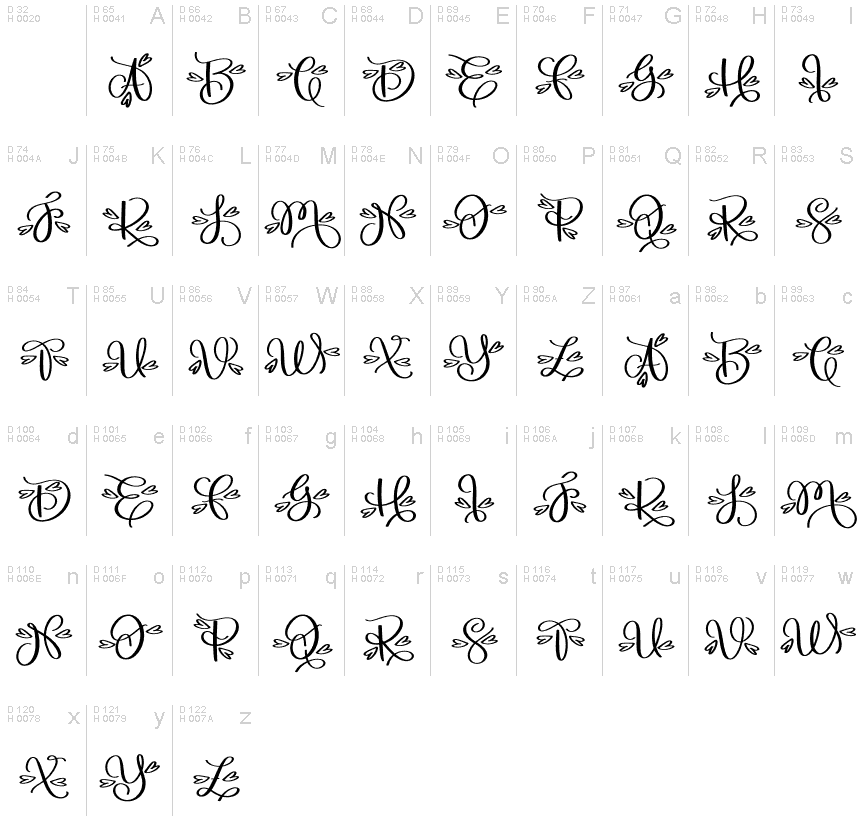
Monogram A
Monogram A, designed by Scratchones, is a decorative display font that exudes elegance and sophistication.
With its semi-light weight and monogram style, it is perfect for creating luxurious invitations, personalized stationery, and high-end branding materials. Its unique decorative elements make it ideal for logo designs and monograms that require a touch of class. Whether you're designing wedding invitations or crafting a sophisticated brand identity, Monogram A will add a refined touch to your projects.